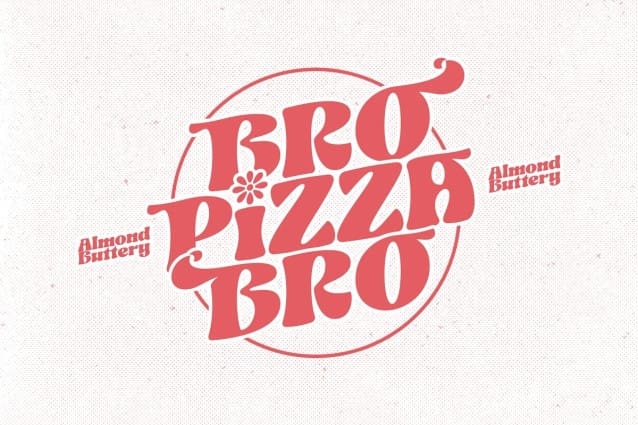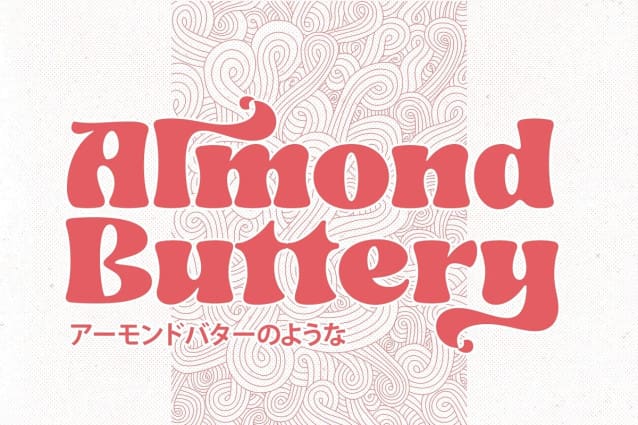
Almond Buttery Font
Almond Buttery Font – A Playful and Retro Bold Font with Curvy Elegance and Stylistic Flair. Get ready to infuse your designs with a touch of whimsy and nostalgia with “Almond Buttery,” a dynamic and bold font that pays homage to the retro aesthetic while adding a modern twist. With its curvaceous letterforms and an array of stylistic alternates, “AlmondButtery” is a versatile typeface that’s ready to add character and charm to your projects.